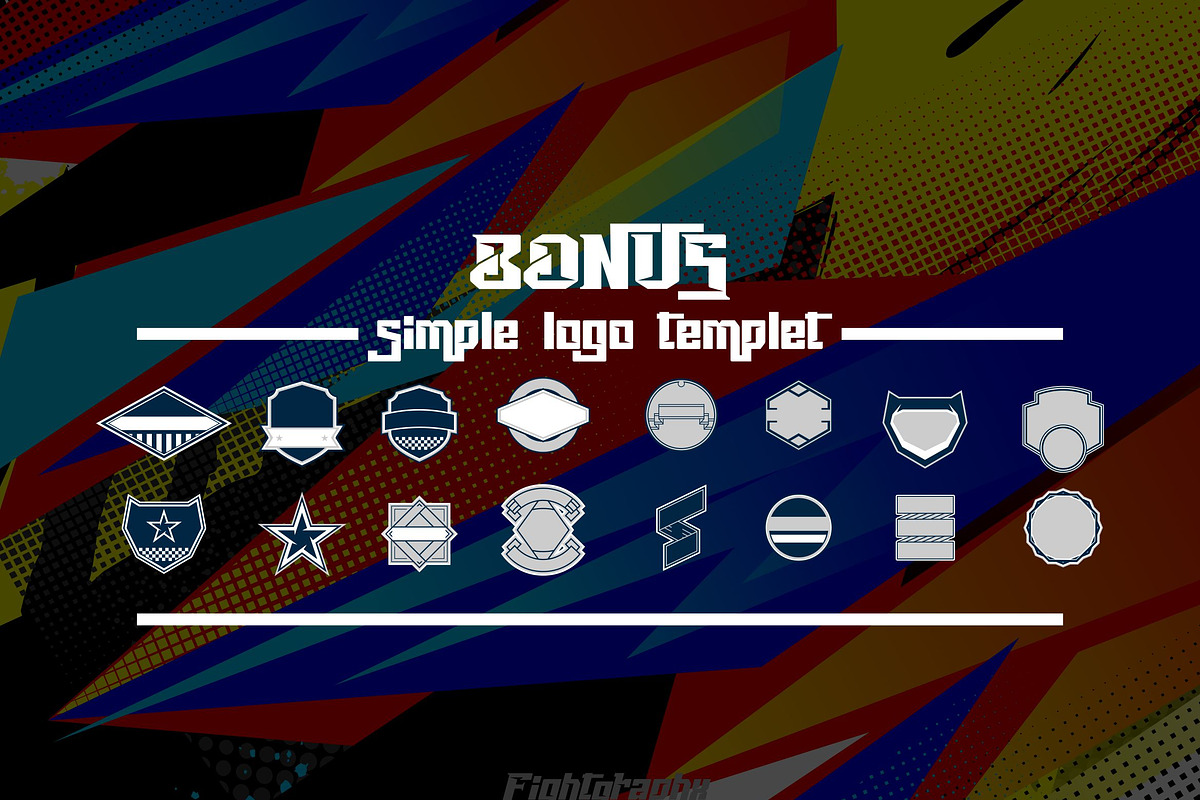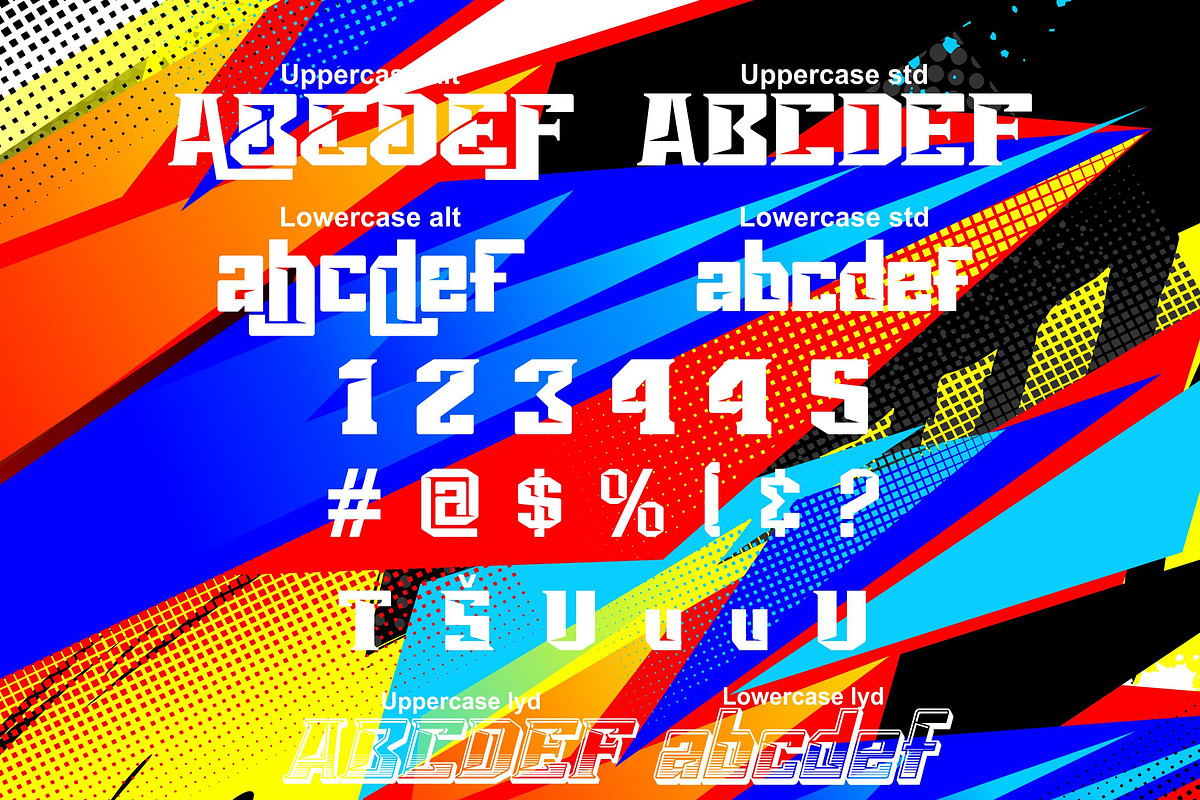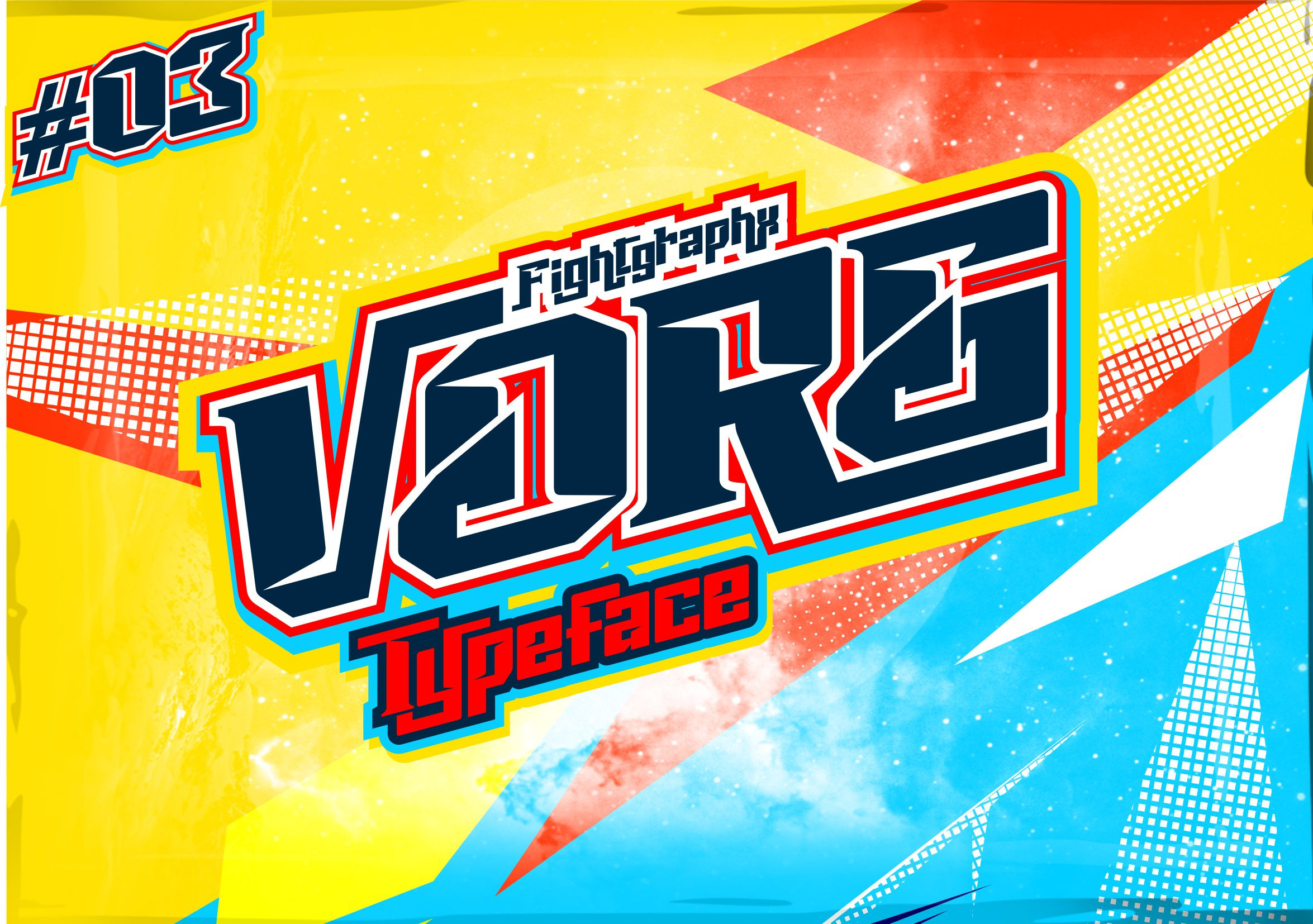
Vorg typeface
New Present Vorg typeface.
Vorg typeface inspired by sports extreme lovers, especially motocross. Vorg typeface are simple, strong and elegant look, you can use the projects you have. Can be used depending on the desire that use, as needed.
Vorg typeface, Can used for various purposes. such as the title, logo, correspondence, letterhead, signage, labels, posters, badges, t-shirt, etc.
Comes with upper and lowercase characters, large set of punctuation glyph, numerals. To create the beautiful combination, just mix the uppercase and lowercase then mix with the alternative font. and bonus simple logo templet/badge ( AI format ).